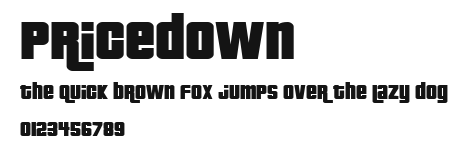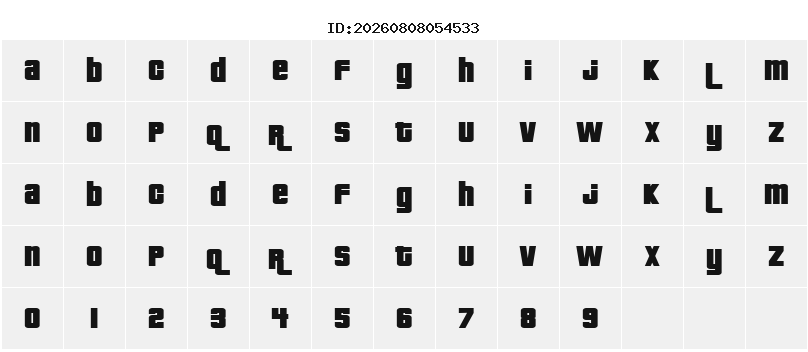
• Font Name: Pricedown
About Pricedown.ttf
Pricedown.ttf is a modern, elegant sans-serif font designed for ultimate readability and visual harmony. Perfect for branding, headlines, web design, and print materials.